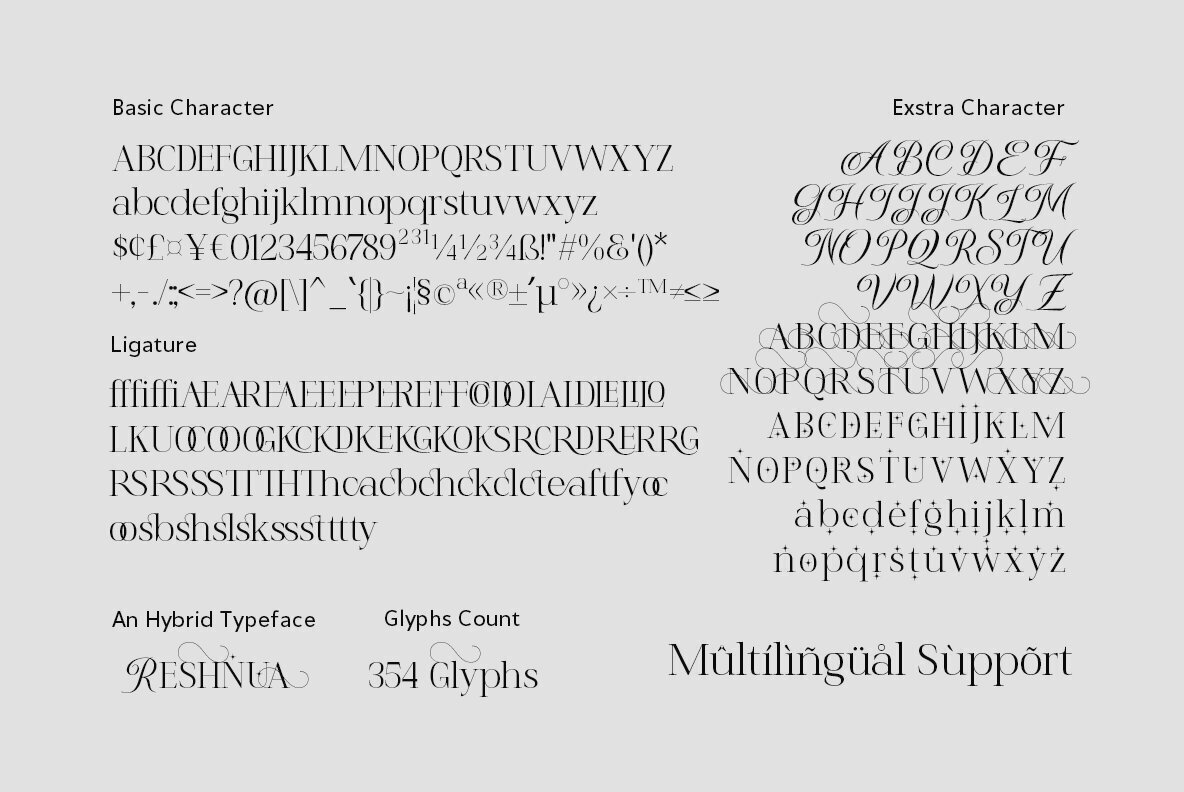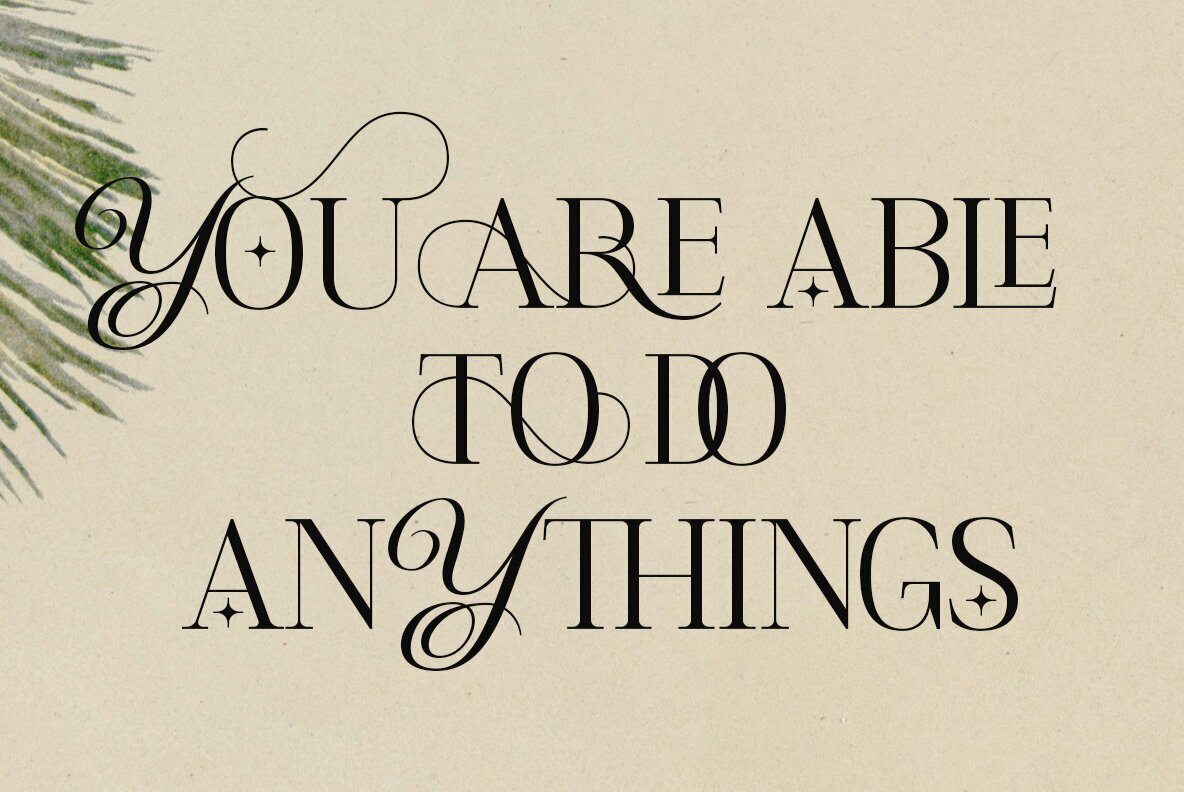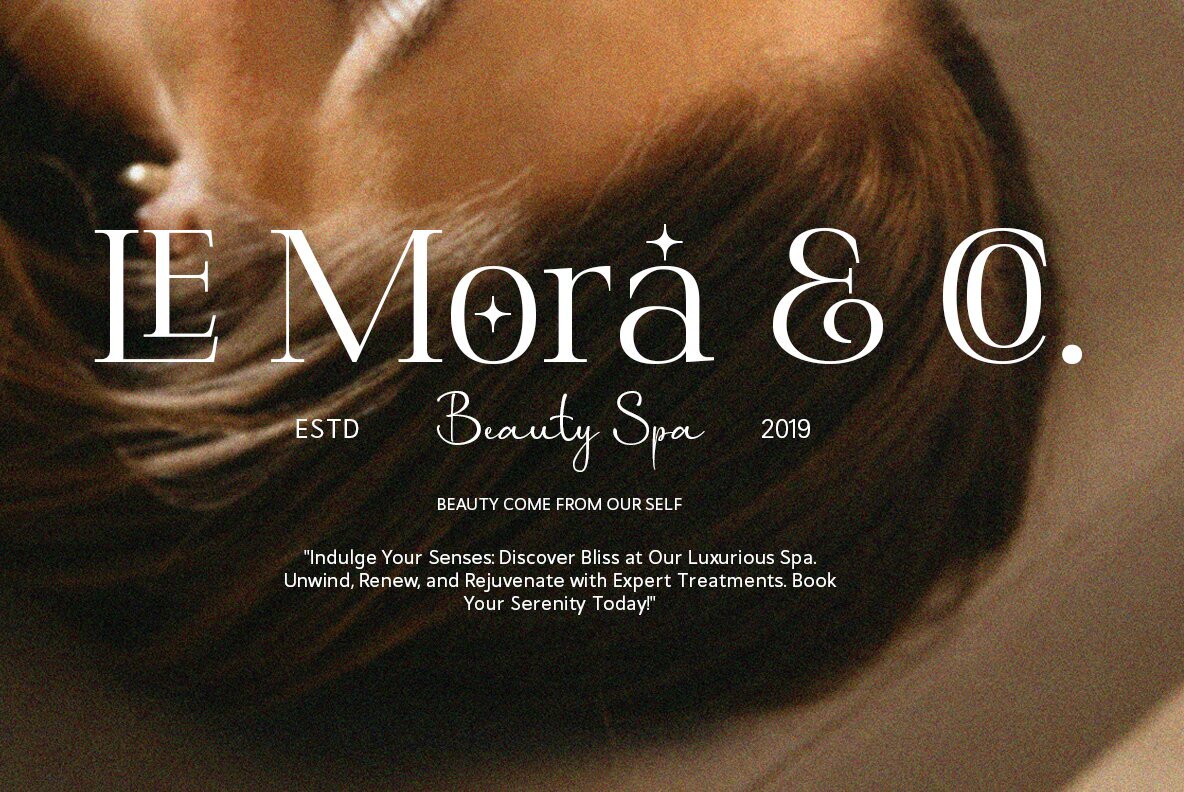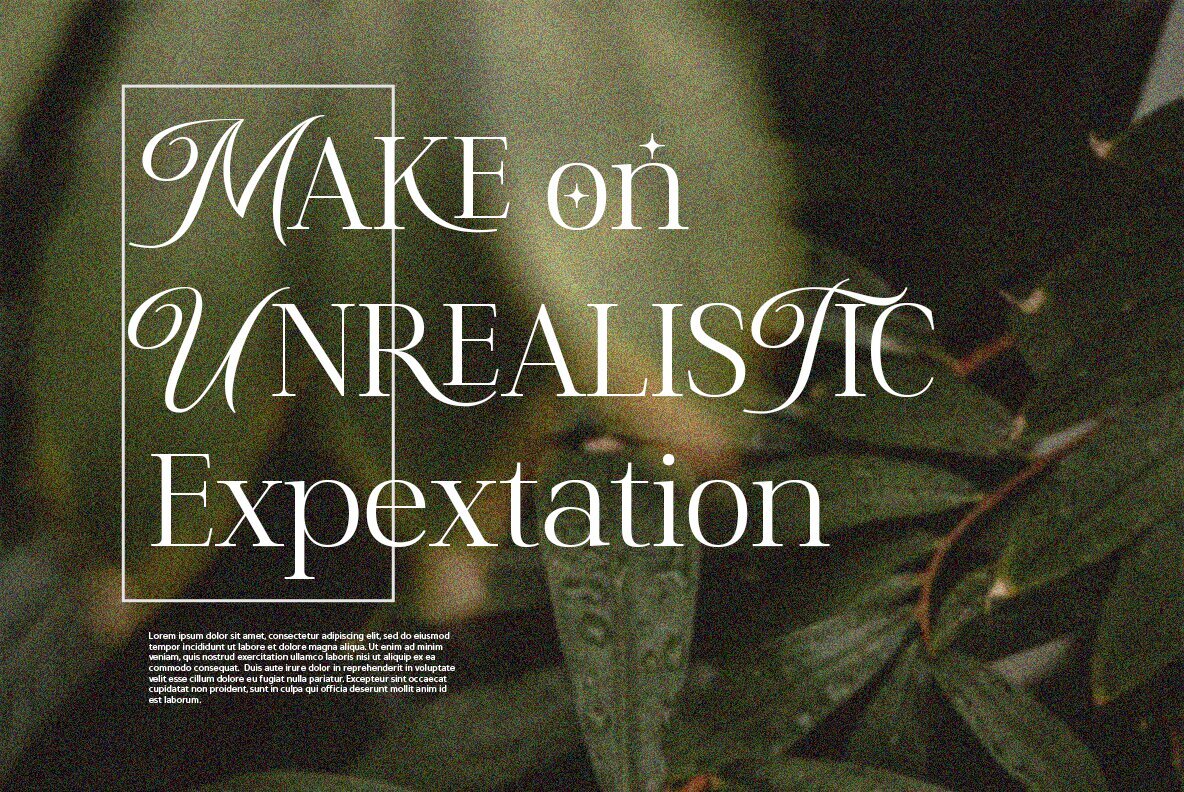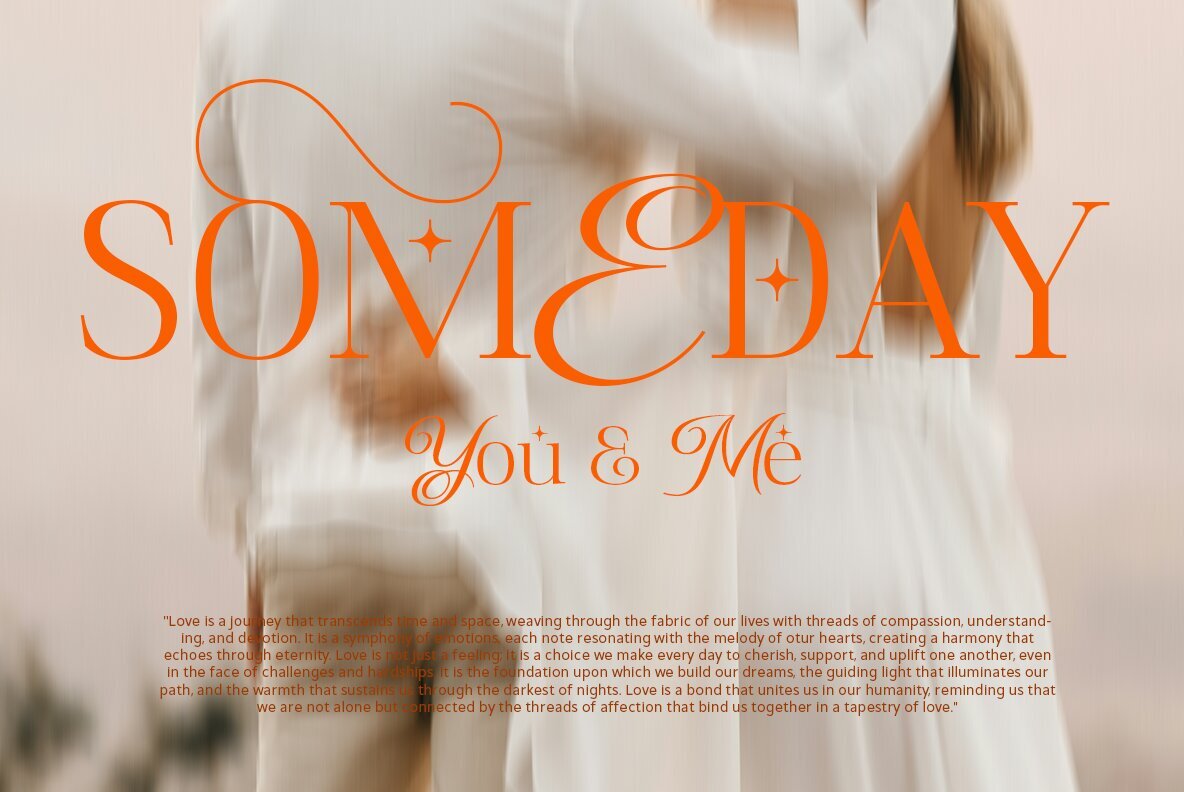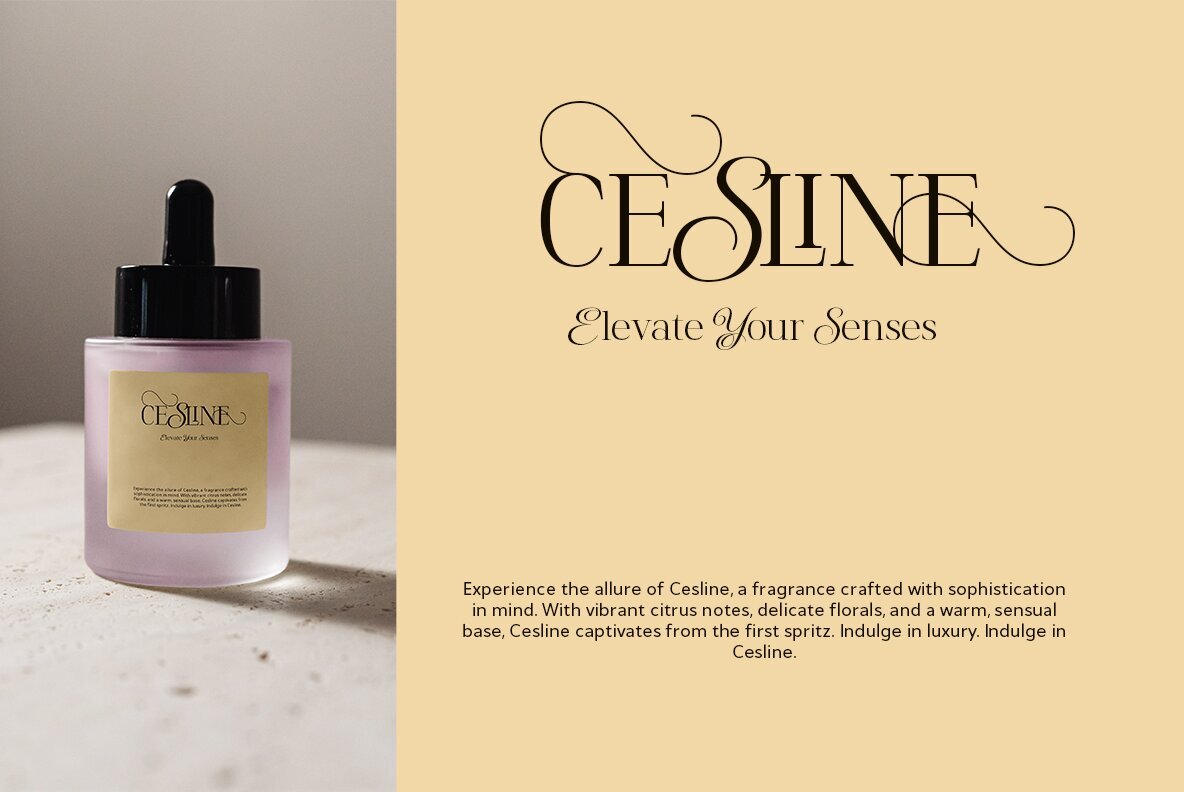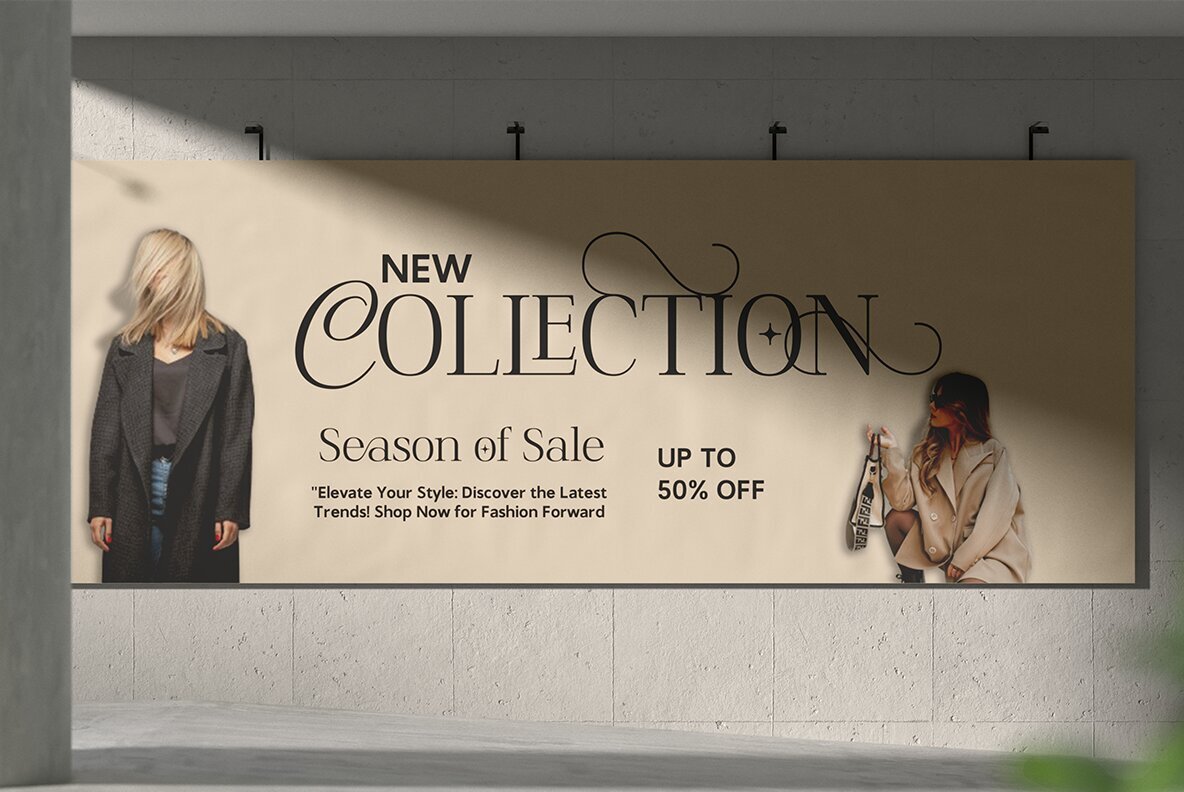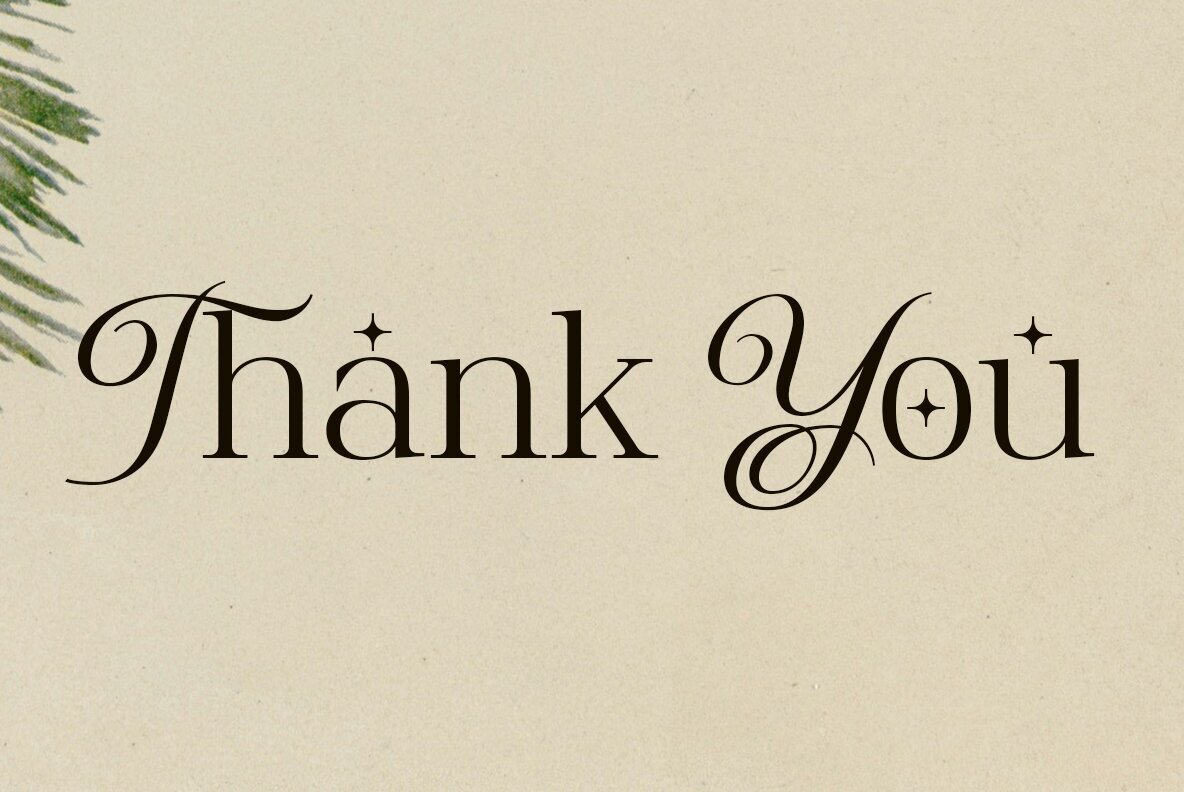
Reshnua Font
Reshnua Regular
Reshnua by Mytype Studio is a versatile and elegant font designed to enhance a variety of creative projects. Ideal for branding, logos, wedding designs, social media posts, advertisements, and more, Reshnua is perfect for bringing your vision to life.Reshnua: Versatile Font for Creative Branding
Comprehensive Character Set